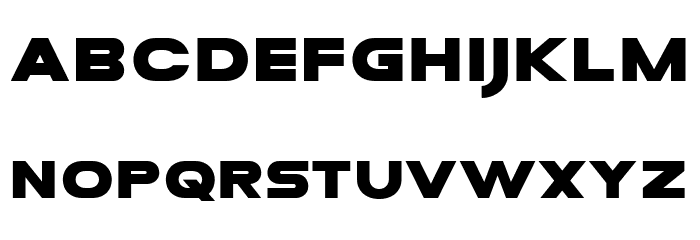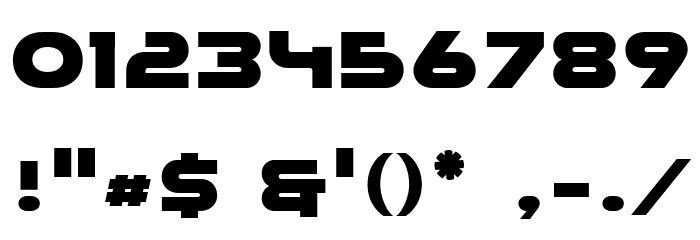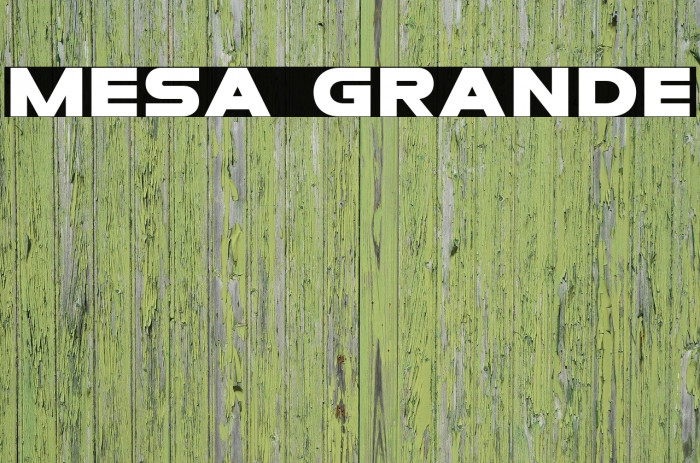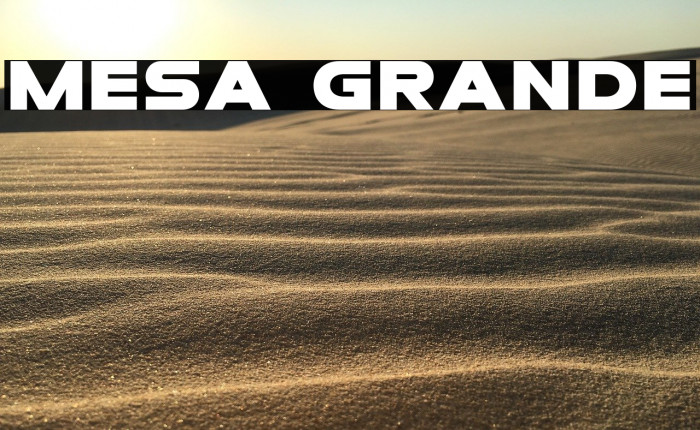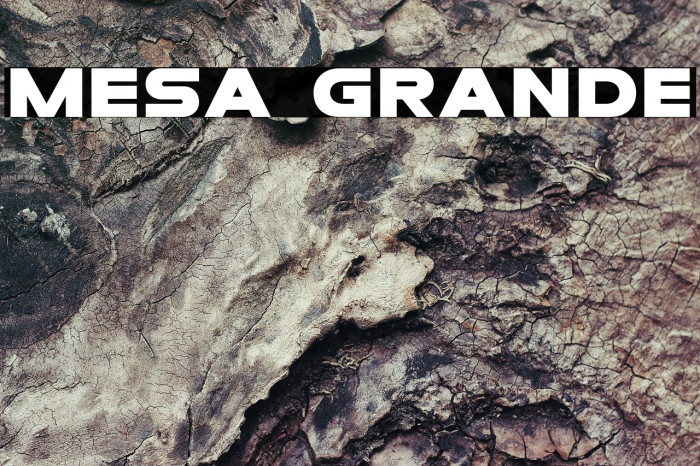
Mesa Grande Font
This font features bold, geometric letterforms with a strong presence. The characters are wide and have a uniform stroke width, giving them a robust and modern appearance. The uppercase letters are particularly striking, with sharp angles and clean lines. The numerals and special characters maintain the same boldness, ensuring consistency across all text. The overall design is sleek and contemporary, making it suitable for impactful headlines and branding projects.
A bold, geometric font with a modern and robust style.
- Proposed Projects: Ideal for branding, advertising, headlines, and poster design.
- Category: Sans-Serif
- Width: Expanded